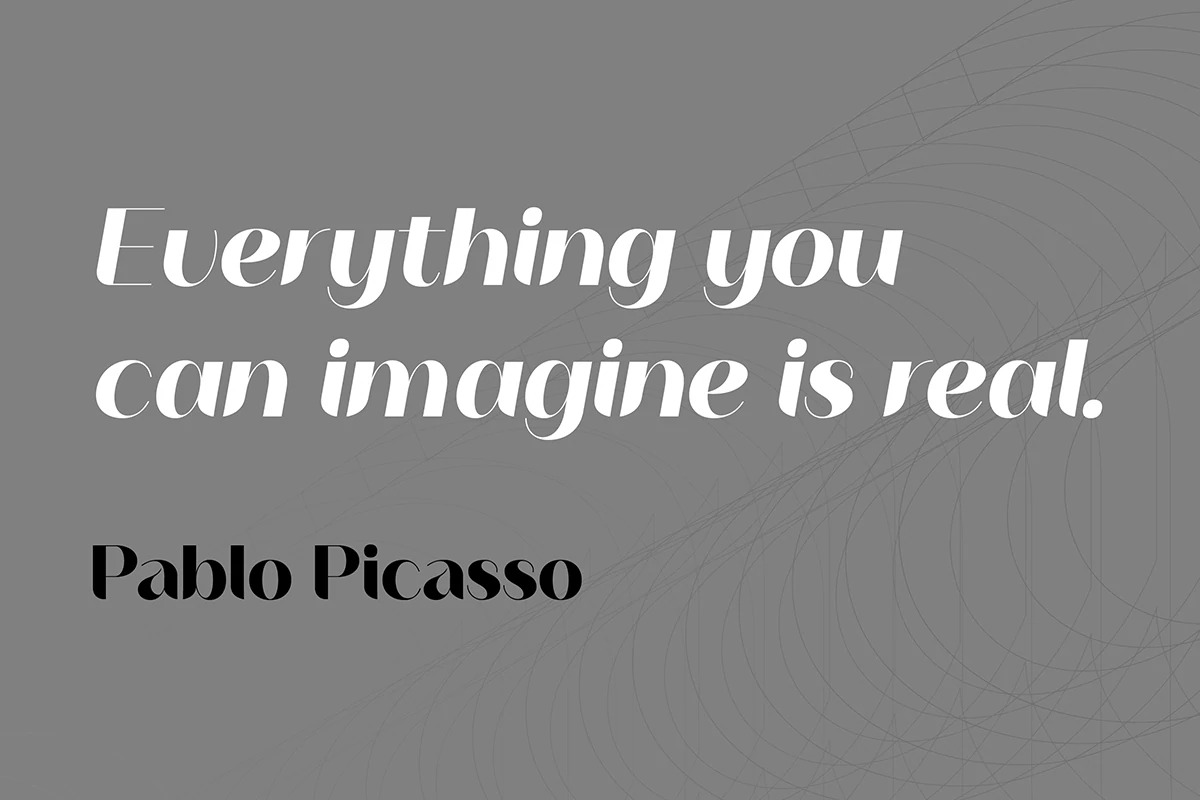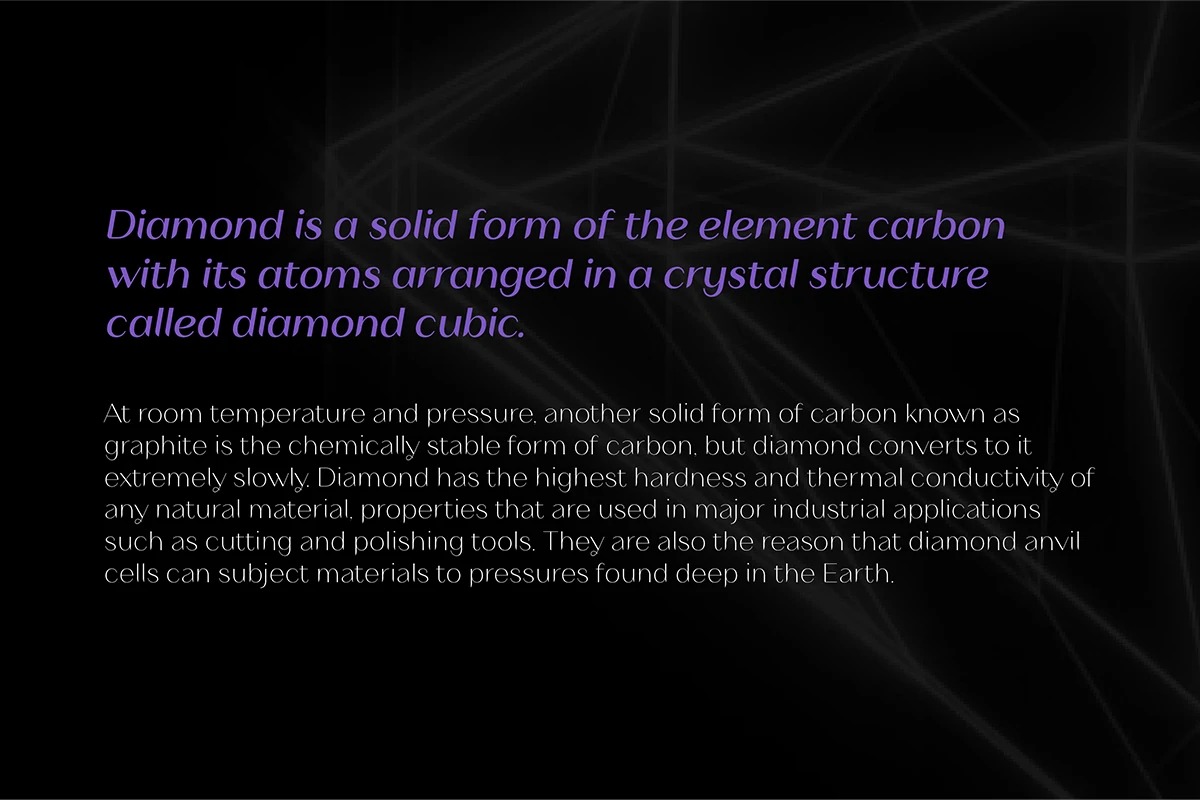
Mavel Font Family
Mavel Sans Serif Font
This is an elegant and modern sans serif font package by Arodora Type. It can easily match your various projects, so add it to your creative ideas and watch how it makes them stand out. With this font, you can create impressive presentations and increase their contrast by using sub-family members. You can create unique looking layouts and banners. The luxury logo will look great for your work.